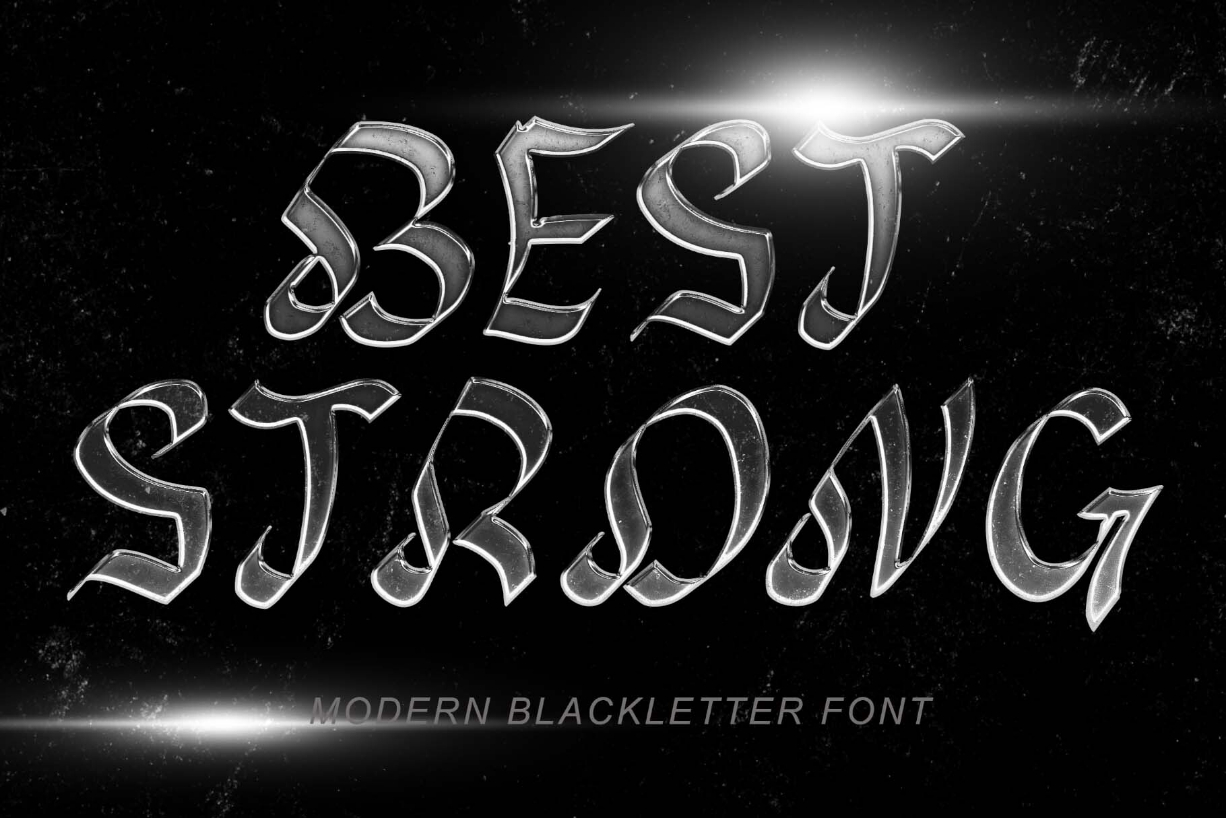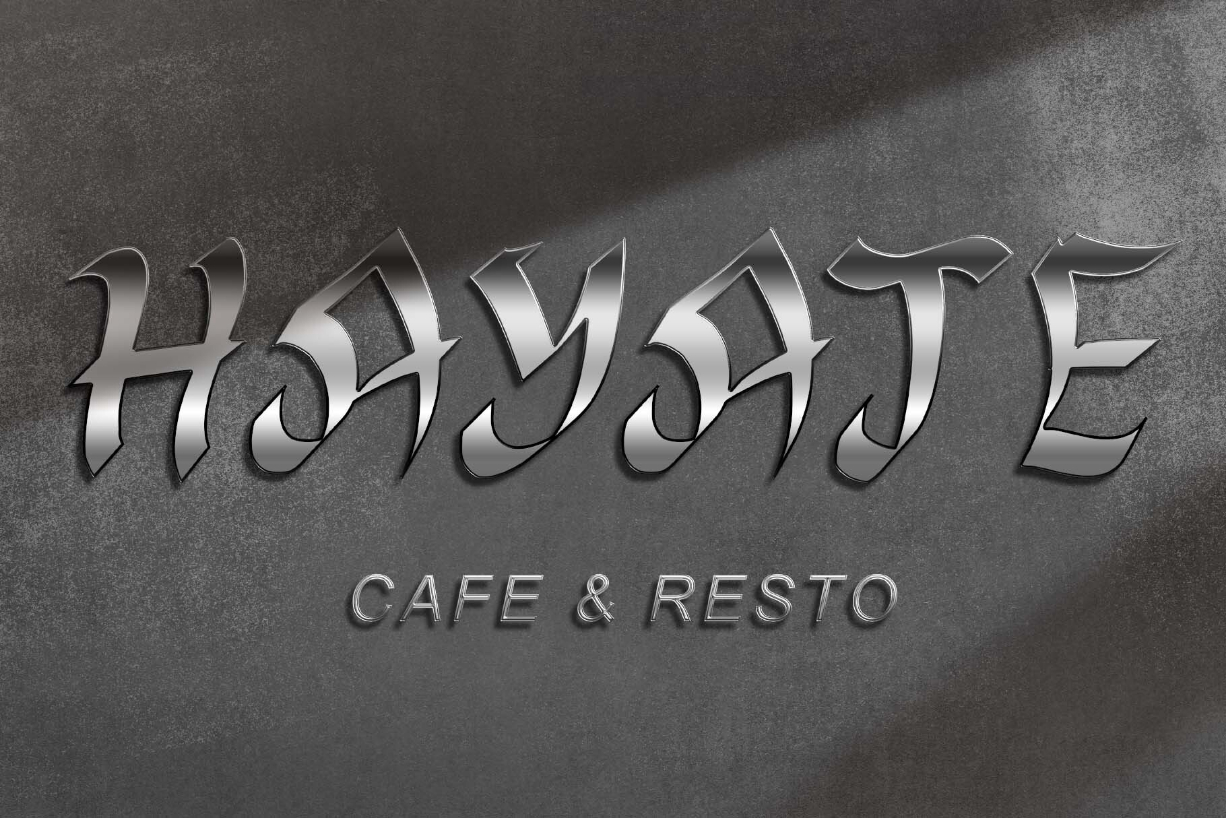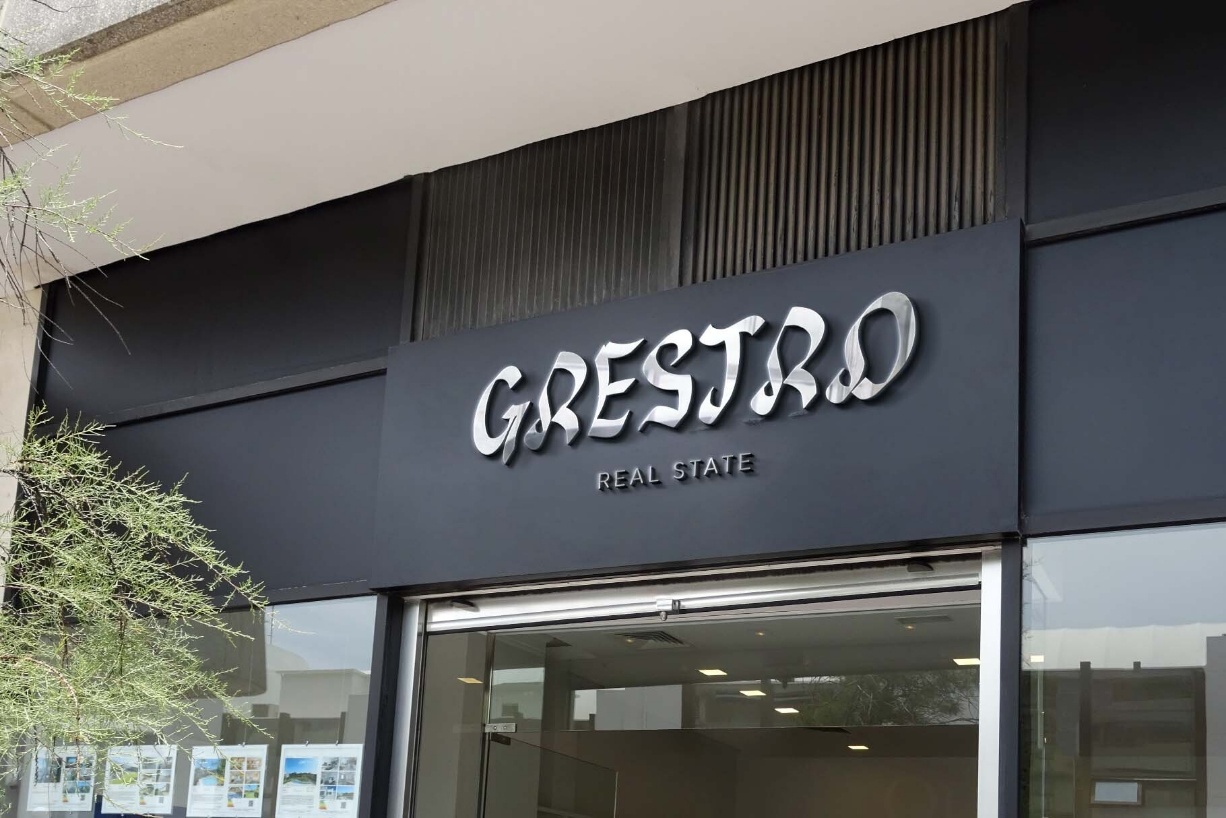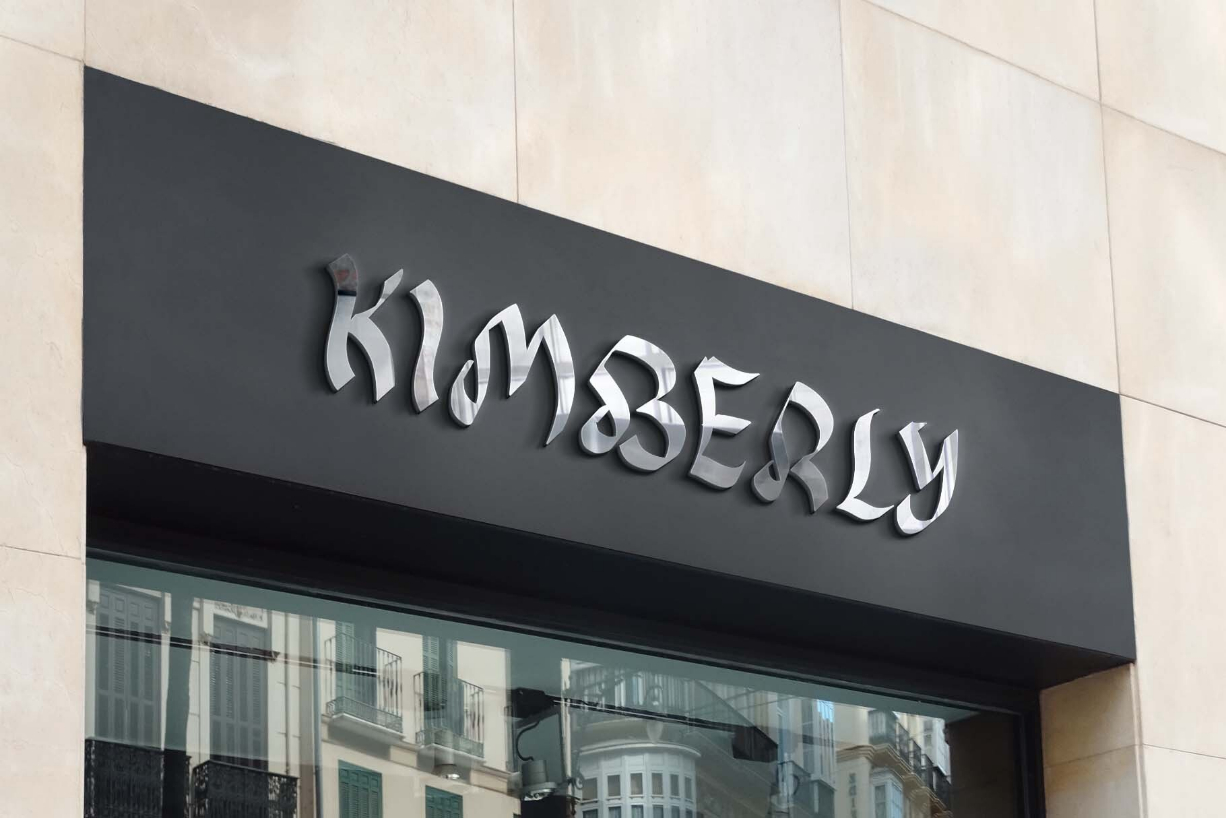
About Best Strong Font
“Best Strong” is an elegant and professional blackletter font. This font is equipped with uppercase, lowercase, numerals, punctuation, and multilingual support. Very suitable for invitations, weddings, engagements, certificates, Christmas, Valentine’s, winter, posters, tattoos, stickers, posters, and others.